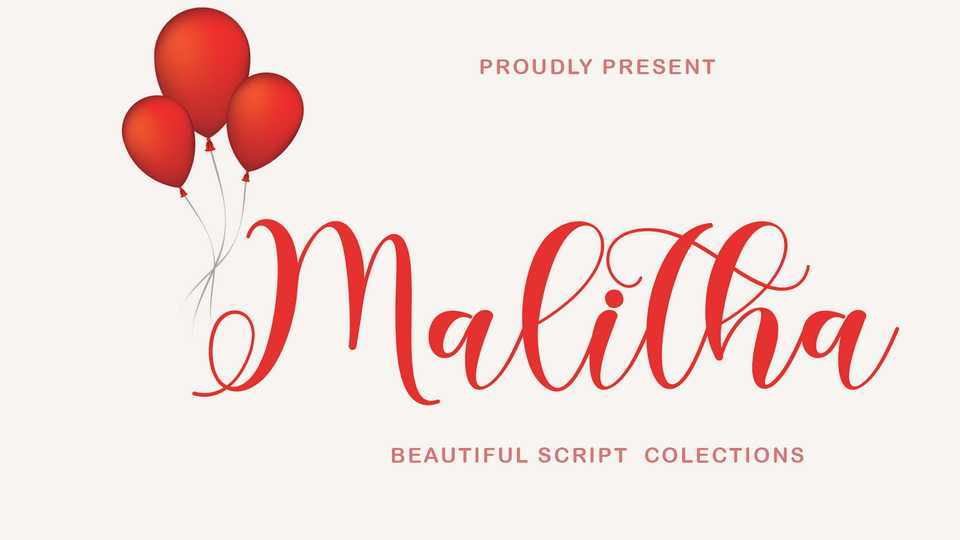
Download Malitha font, a delicate, elegant and flowing handwritten script. Malitha has beautiful and well balanced characters and as a result, it matches a wide pool of designs.
Designer: Selvia Design